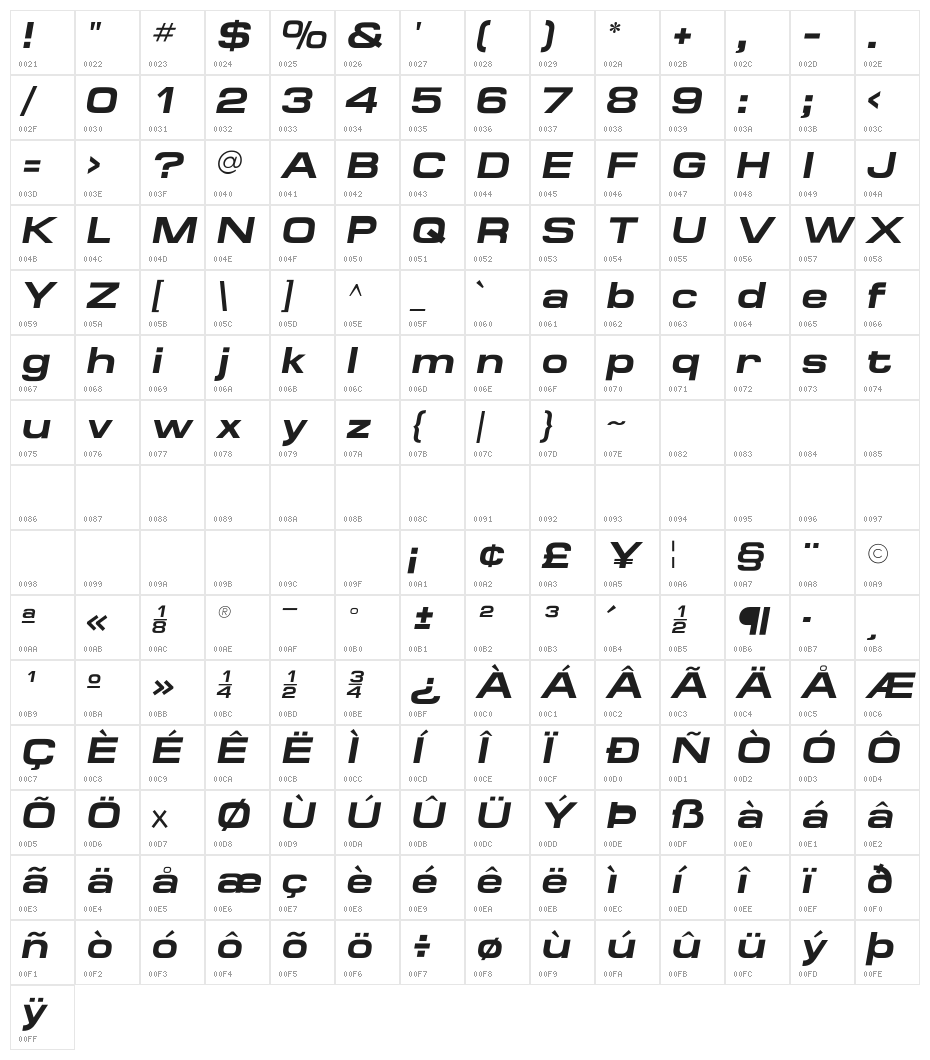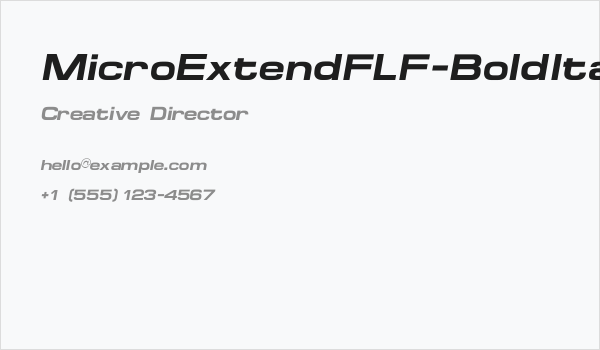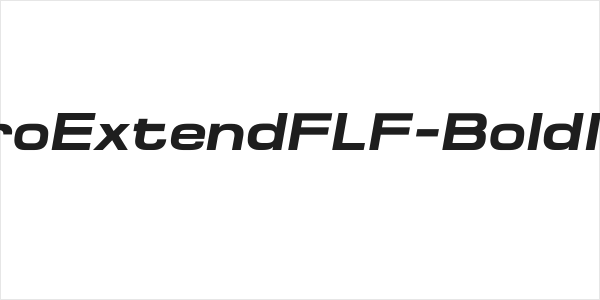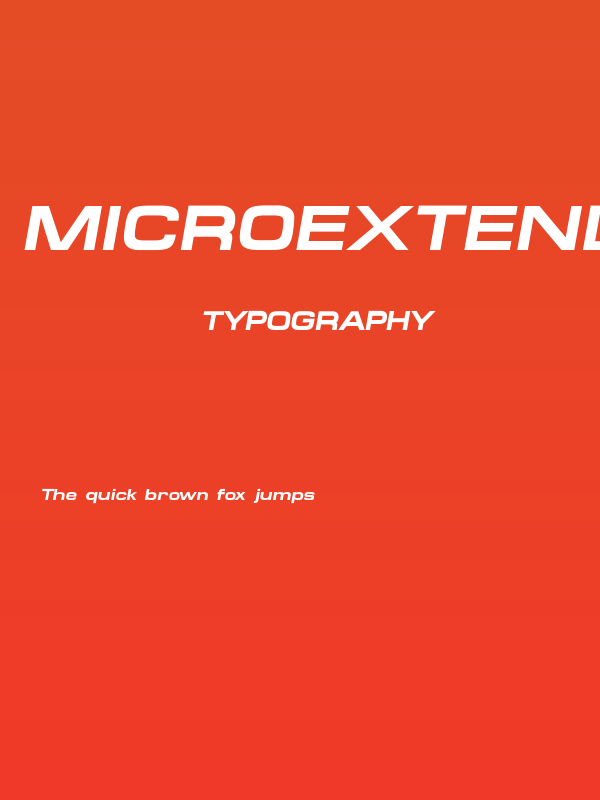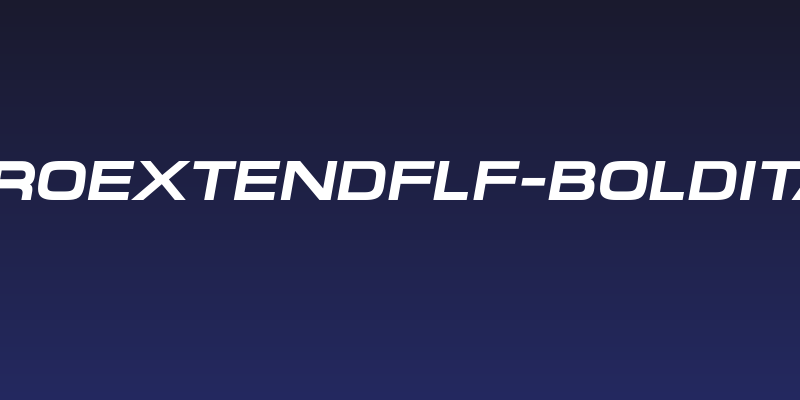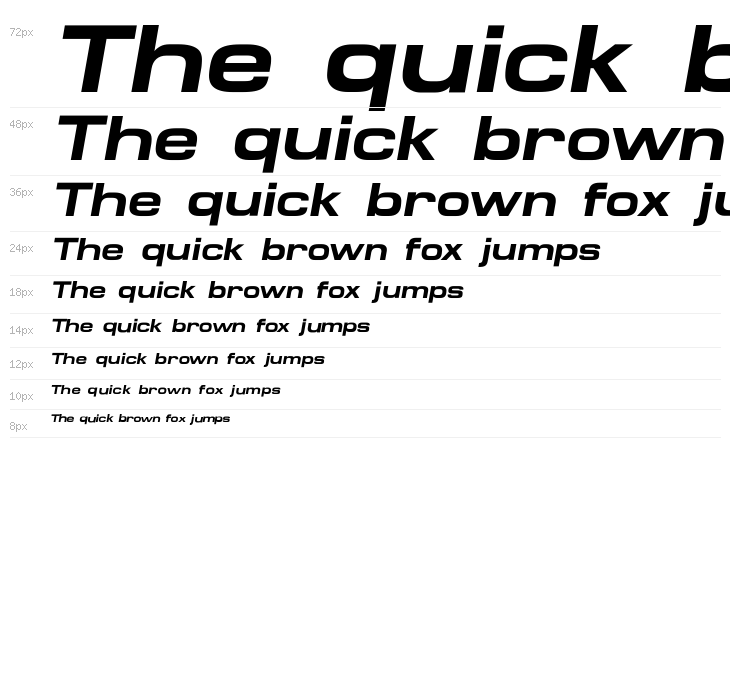
MicroExtendFLF-BoldItalic Font
MicroExtendFLF-BoldItalic Description
This font exhibits a bold and italicized style, characterized by its extended and slightly condensed letterforms. The strokes are smooth and consistent, giving it a sleek and modern appearance. The uppercase and lowercase letters maintain a uniform slant, enhancing its dynamic and forward-leaning aesthetic. The numerals are clear and distinct, matching the overall style of the alphabet. Special characters are well-integrated, maintaining the font's cohesive look. This typeface is designed to stand out, making it suitable for attention-grabbing headlines or branding materials.